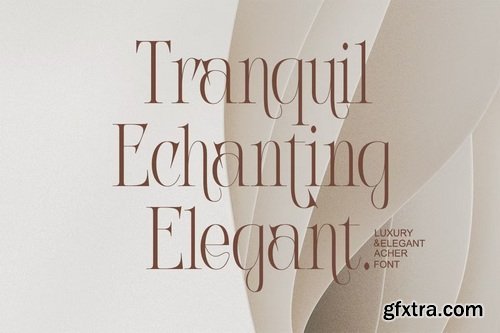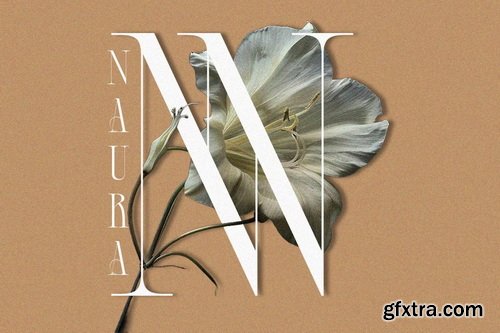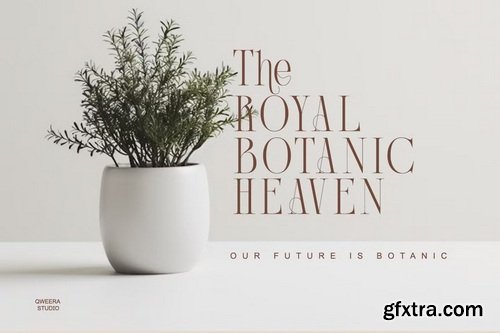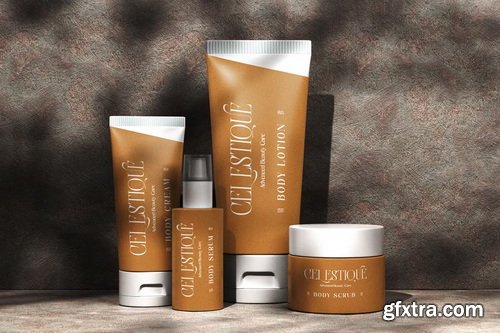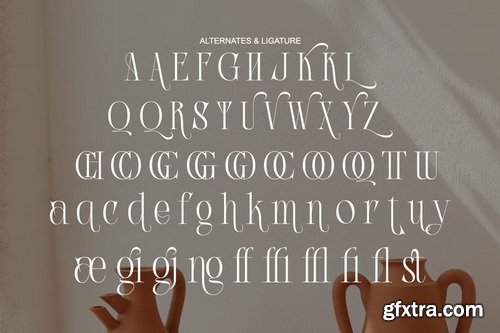
CreativeMarket - Acher - Elegant Luxury Serif
Acher is more than just a font—it’s a symbol of elegance and luxury, designed to elevate your creative projects with timeless sophistication. With its regular and italic versions, Acher combines classic serif elegance with modern style, making it the perfect choice for branding, logo design, packaging, posters, and more. Whether you’re crafting a high-end logo or designing a luxurious packaging layout, this font ensures your work radiates class and refinement.